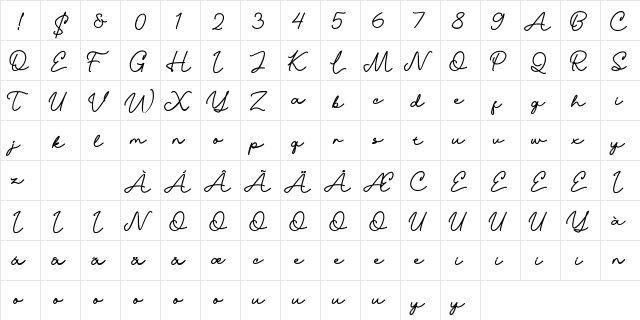
Southern Demo Regular
Design Context for Southern Demo Typeface
Southern Demo is a composed and adaptable typeface that performs quietly and consistently across a wide range of design contexts.